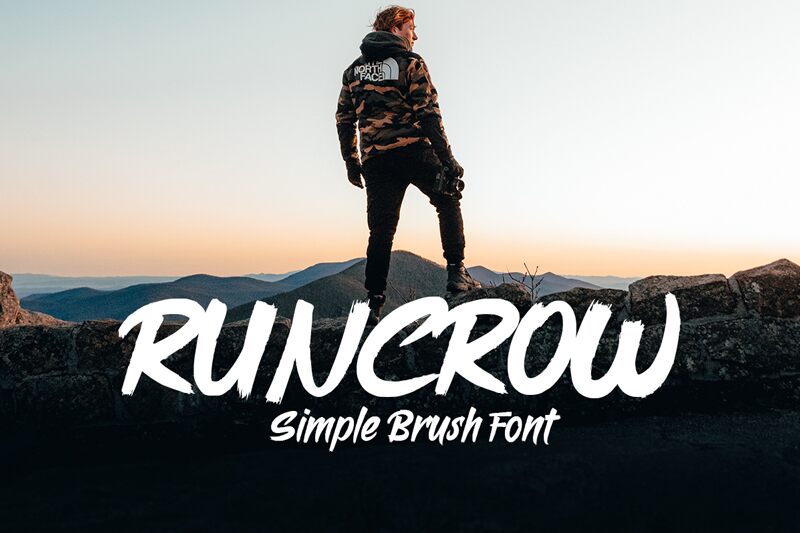
Runcrow font family by Kong Font is a free modern brush typeface collection that easily creates contemporary headers or logotypes. It comes in 2 font styles and mimics the gestures of a real brush on paper for a relaxed careless appearance. Naturally irregular Runcrow is suitable for delivering an artistic texture to your work.
Runcrow works great as a display font for branding, advertising headlines, social media posts, or packaging. Other use examples include album art, books, posters, and covers. The font's dynamic presence comes handy in a variety of creative themes and visual identities.